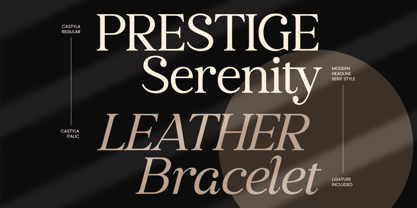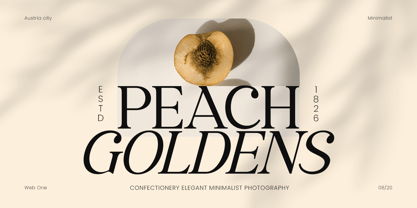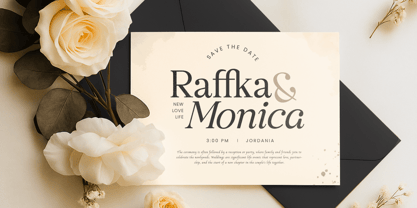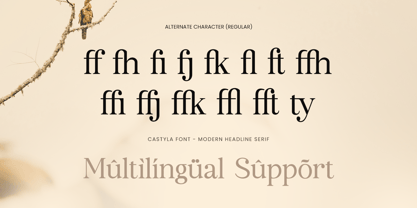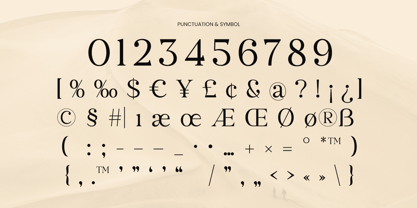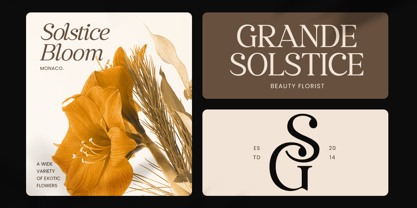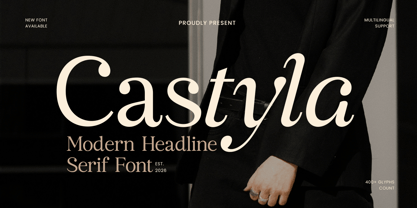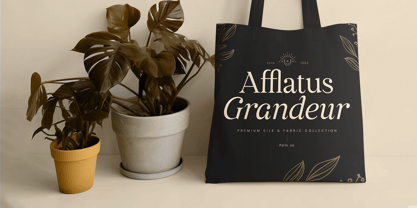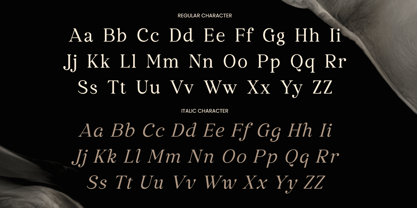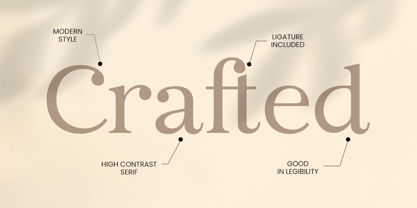
Castyla is a modern editorial branding font crafted to deliver polished sophistication and contemporary clarity. With refined letterforms and a confident editorial presence, this typeface brings a premium tone that feels stylish, professional, and perfectly suited for high-impact typography.
Designed for brand-forward layouts, Castyla works beautifully across magazine titles, editorial spreads, lookbooks, website headers, brand presentations, logos, packaging, posters, and social media campaigns. Its modern structure keeps typography clean and elevated, making every headline feel intentional, balanced, and ready for premium branding.
Whether you’re building a fashion identity, designing luxury packaging, creating a modern brand system, or crafting an editorial layout with a high-end feel, Castyla provides a strong typographic foundation that makes your visuals look refined, modern, and unmistakably premium.
Inspiration Behind Castyla
Castyla is inspired by contemporary editorial typography—where elegance meets structure and modern branding demands clarity. The design draws from magazine-style headline aesthetics and clean identity systems to create a font that feels luxurious, minimal, and confidently modern for both print and digital design.
Castyla Font Features:
Modern editorial letterforms with refined branding presence
Ready with Regular and Italic version for any variations
Perfect for headlines, magazine layouts, and premium identity systems
Clean structure for sleek, high-impact typography
Uppercase, lowercase, numerals, and punctuation included
OpenType features for polished professional typesetting
Perfect For
Editorial design, magazine covers, and headline typography
Fashion branding, lookbooks, and premium brand presentations
Logos, wordmarks, and modern identity systems
Luxury packaging, labels, posters, and upscale marketing layouts
Social media graphics, websites, and digital campaigns
Multilingual Support
Castyla